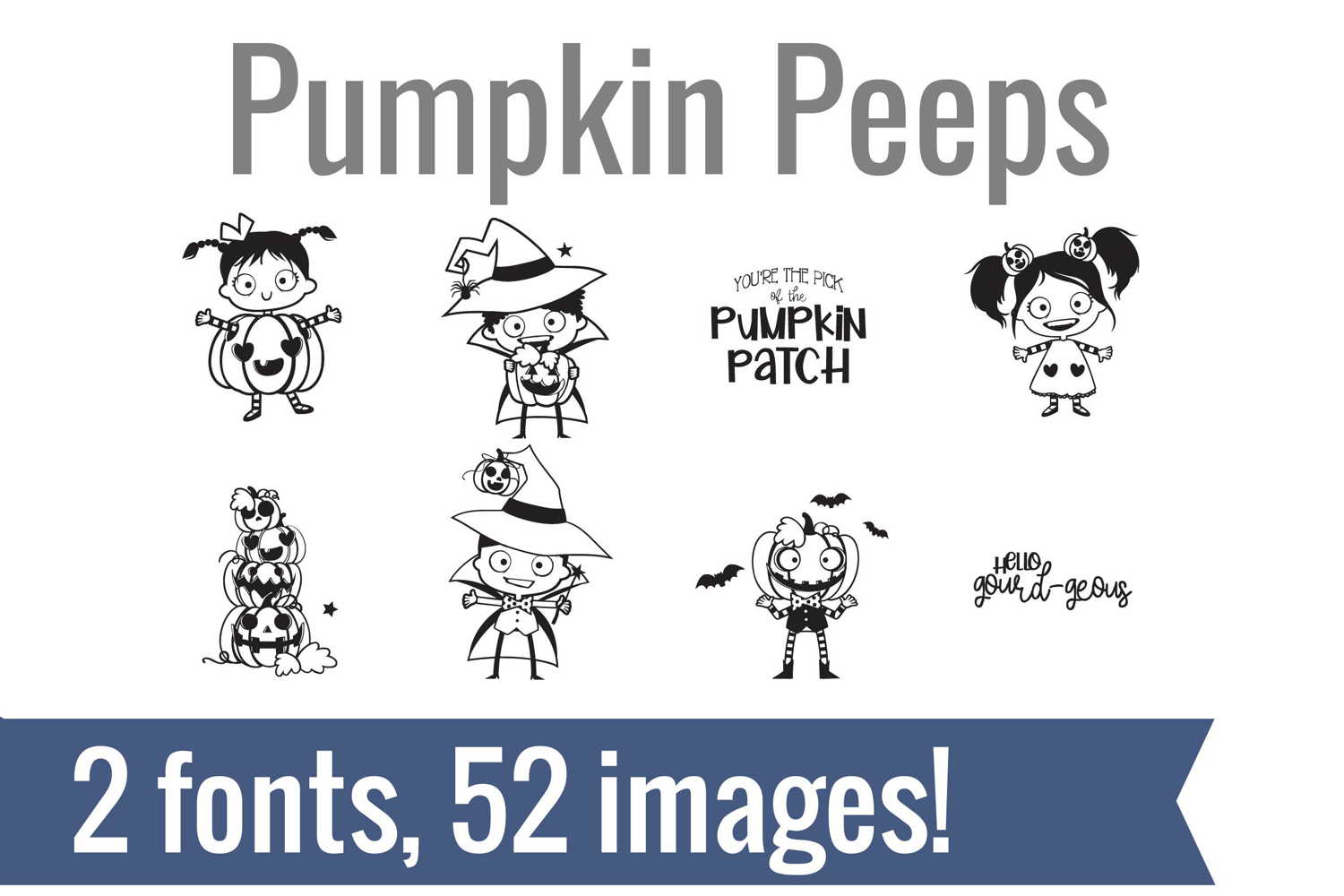
Pumpkin Peeps Dingbats
Unlock endless creativity with two perfectly coordinated fonts! There are two dingbat fonts in this bundle, both featuring adorable kids dressed for Halloween and a plethora of pumpkins and jack-o-lanterns.
Tired of spending hours searching for the perfect icons and graphics? Our dingbat fonts put dozens of cohesive, scalable designs at your fingertips. Simply install the font and type a letter to produce a pre-made image. From charming seasonal icons for holiday cards to intricate frames for your invitations, these fonts let you create stunning designs for vinyl cutting, paper crafts, planners, and more.